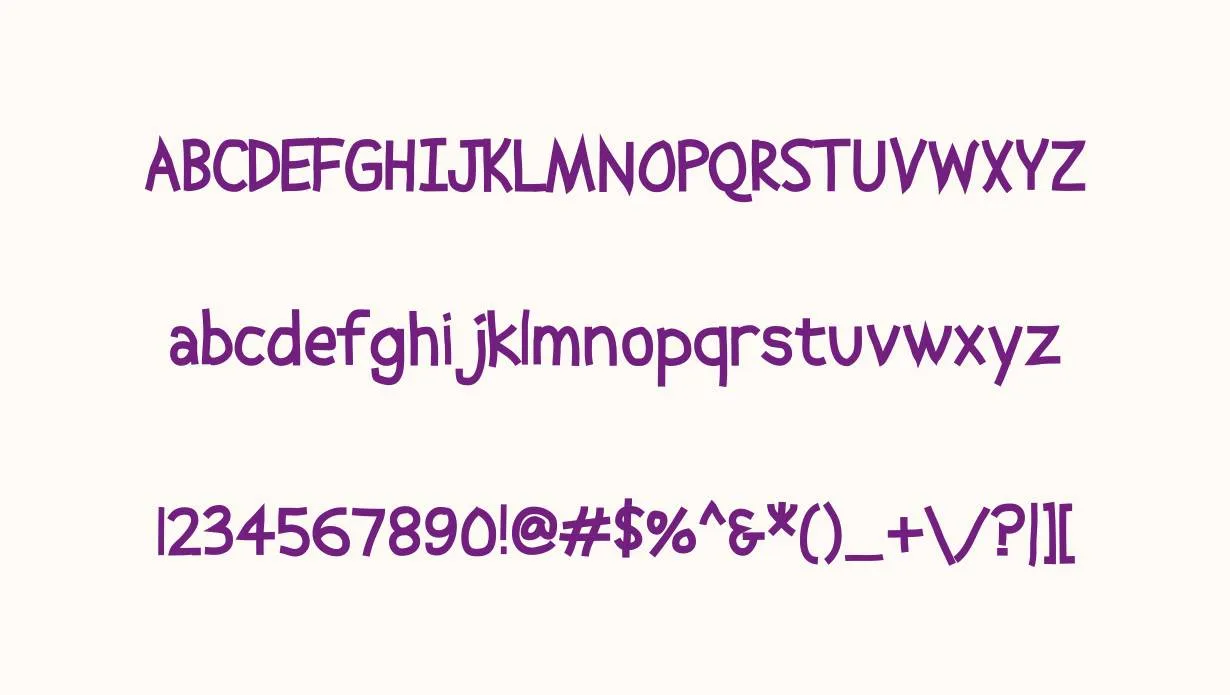
The Abscissa typeface, created by Just van Rossum, is a fresh and chic font perfect for all your design needs. Whether you’re working on a project for school, work, or just for fun, this font is sure to make a statement and stand out from the crowd. Discover how this modern typeface can take your designs to the next level and impress your audience with its simplicity and elegance. Don’t miss out on the opportunity to elevate your creations with the Abscissa font!
With a focus on clarity and simplicity, Abscissa offers a contemporary look to your words. The font’s strength lies in its ability to convey information with a touch of modern elegance.
View of Abscissa Font
Abscissa Font Info
| Name | Abscissa Font |
| Designer | Tepid Monkey |